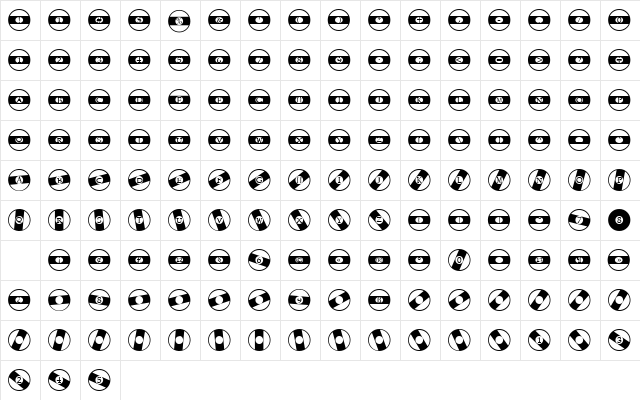
FZ BORD21 Regular Font Preview
FZ BORD21 Regular
Design Context for FZ BORD21 Typeface
FZ BORD21 is a composed and adaptable typeface that performs quietly and consistently across a wide range of design contexts.